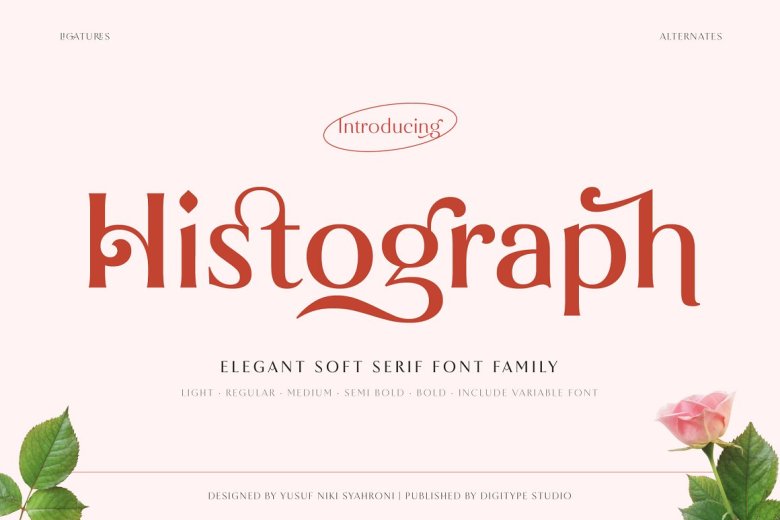
Histograph Font
Histograph has a sophisticated and original style, which makes it a perfect fit for any branding, logo, headline, paragraph text, wedding invite etc. (5 weights + 1 variable)— Histograph has ligatures, alternates, multilanguage and also provided with PUA encoded.
Histograph Serif Font